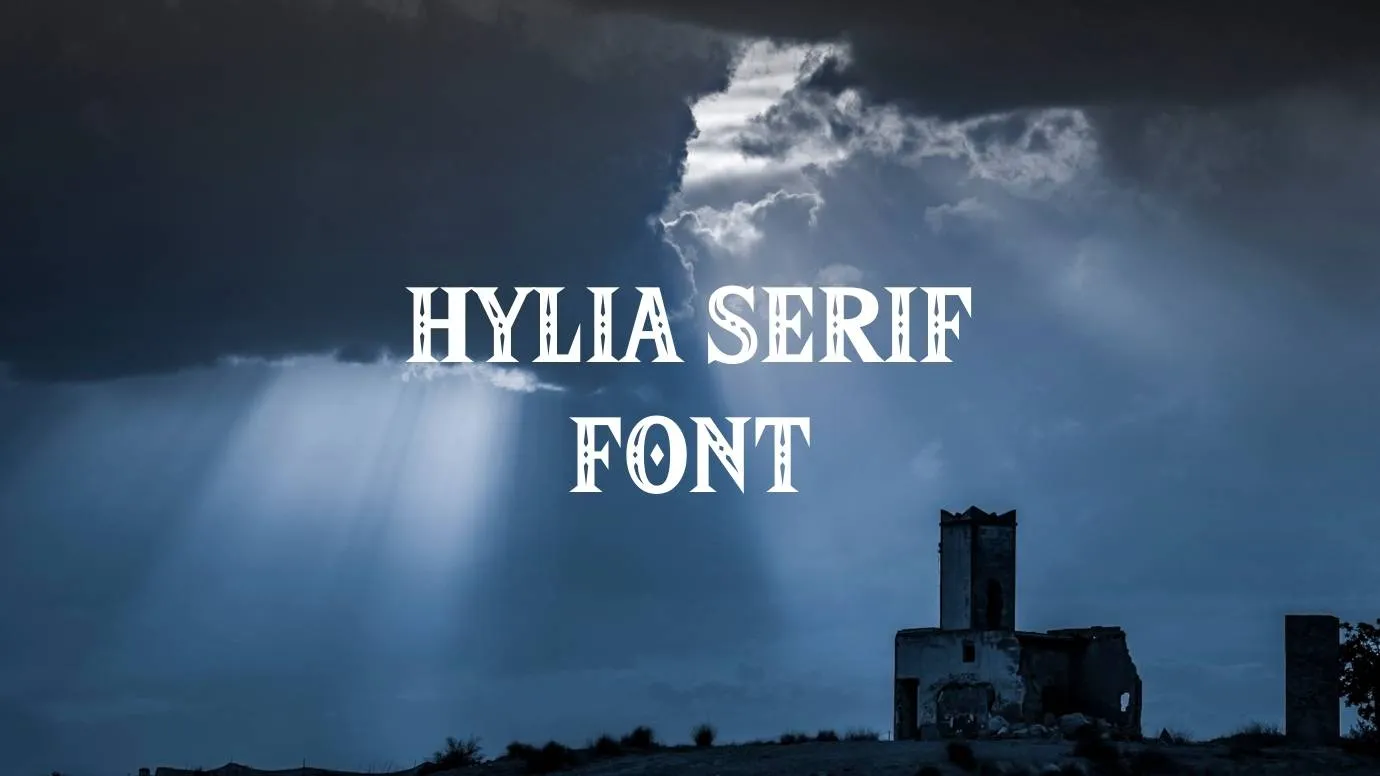
Hylia Serif is a fresh, contemporary, and chic style. Crafted by Jack Sullivan, its aesthetic is both unique and stunning. Boasting over 250 characters, this font includes uppercase letters, lowercase letters, punctuation marks, and a variety of special characters.
Hylia Serif Font